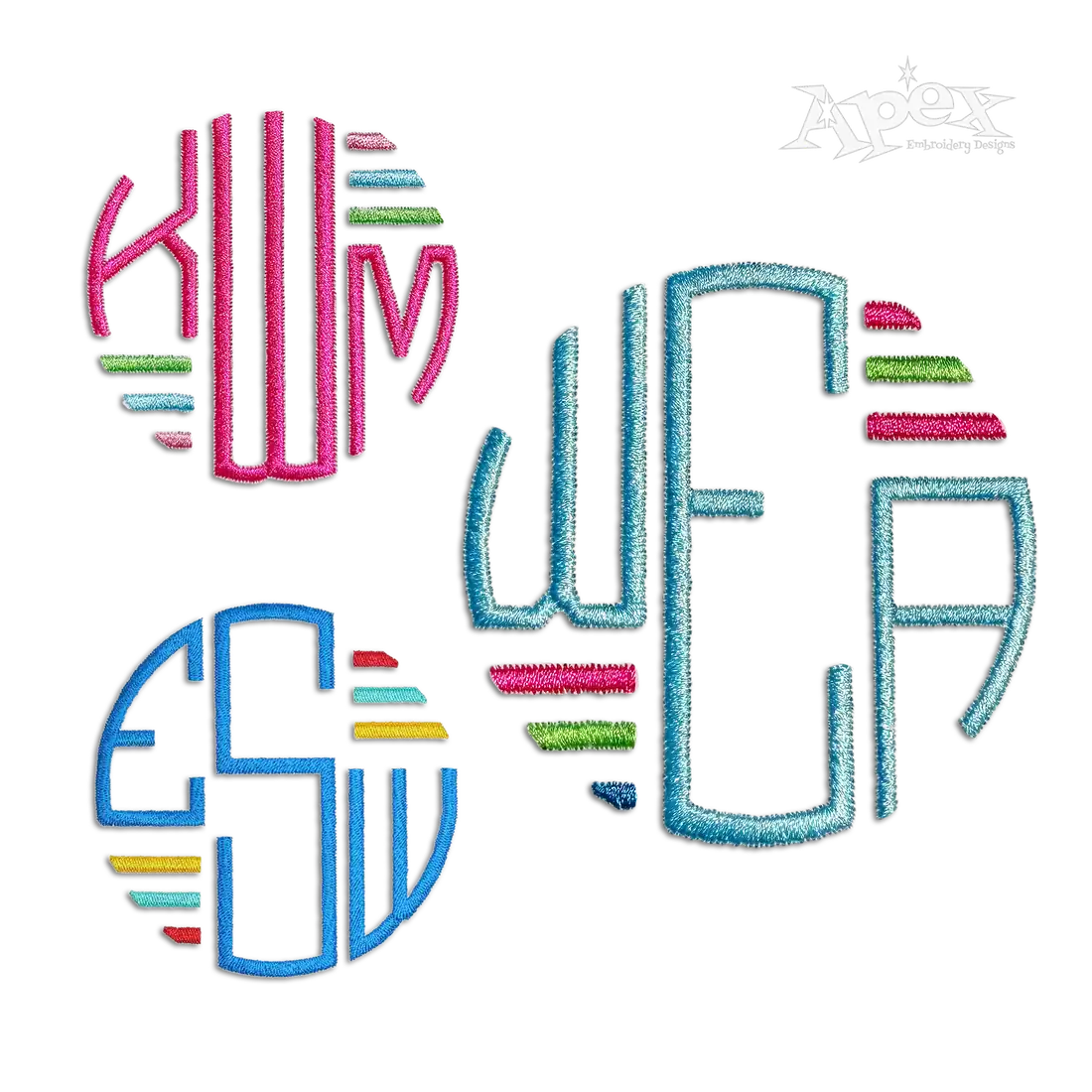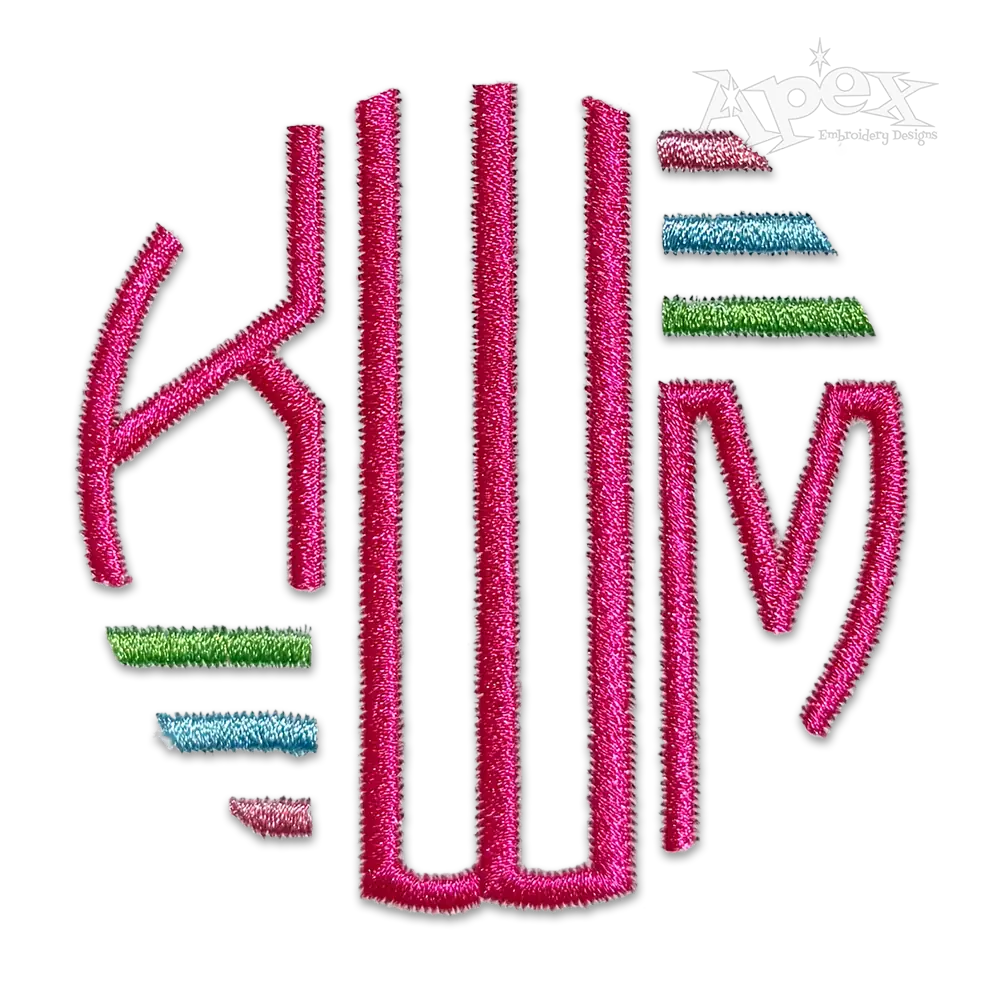
Round Circle Lined Embroidery Font
Clean architectural symmetry meets modern heirloom elegance in our Round Circle Lined embroidery font. Designed to transform three distinct initials into a harmonious circular insignia, this typeface balances crisp negative space with horizontal accent bars that seamlessly integrate every letter. As digitizers, we engineered this motif to capture light across every satin curve, evoking the polished sophistication of mid-century bespoke resort wear and timeless personalized gifting.
Project Ideas for Round Circle Lined
This striking circular monogram brings tailored personality to curated lifestyle pieces and home decor:
- Luxury Table Linens: Stitch refined emblems on linen cocktail napkins, hemstitched runners, and dinner placemats for elevated entertaining.
- Bespoke Resort Wear: Customize linen cabana shirts, light jackets, and sun hats with tailored satin monograms.
- Heirloom Bedding: Showcase grand initials centered on waffle-weave blankets, duvet covers, and tailored pillow shams.
- Canvas Totes & Travel Bags: Personalize heavy canvas duffels, market totes, and weekend carryalls with durable, high-density embroidery.
- Custom Outerwear: Scale the bold applique sizes onto bomber jackets, stadium blankets, and fleece pullovers for an athletic crest aesthetic.
The balanced circular silhouette lends itself effortlessly to classic garment zones:
- Left Chest: Embroider 2" or 3" monograms positioned 7 to 9 inches down from the left shoulder seam on polo shirts and lightweight vests.
- Cuff & Sleeve: Place the discreet 1" size approximately one inch above the wrist hem, aligned with the placket on bespoke dress shirts.
- Corner Diagonal: Angle 2" or 3" designs 2 inches inward from hemstitch corners on cocktail napkins and luxury table textiles.
- Center Front: Feature 6" to 10" sizes centered on crewneck sweatshirts, decorative pillow faces, or tote pockets.
- Jacket Back: Apply the 12" or 14" applique motif across the upper back between shoulder blades for an impactful statement crest.
Round Circle Lined Craft & Letterform Details
Digitizing a three-letter circular monogram demands rigorous geometric precision. The commanding center character anchors the composition, flanked by matching left and right letterforms that curve organically to define an unbroken circular perimeter. To counter the visual void left by narrower initials, horizontal accent bars bridge the negative space, creating balanced tension and architectural rhythm. Every satin stitch column is calibrated with smooth angle transitions that maintain lustrous thread refraction, while meticulously plotted underlay guarantees absolute stability, preventing distortion on both fine woven fabrics and textured knits.